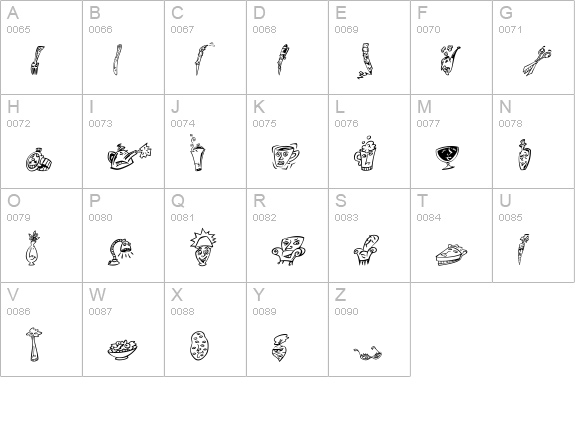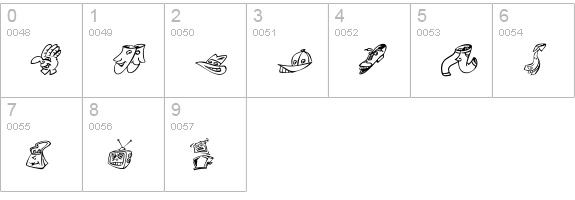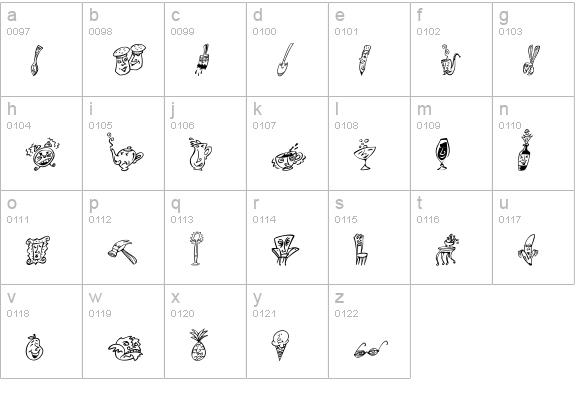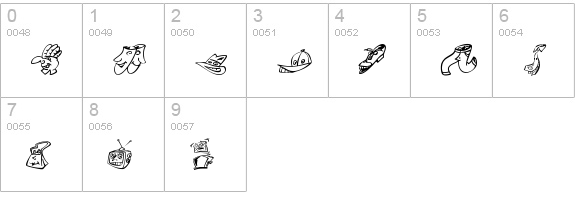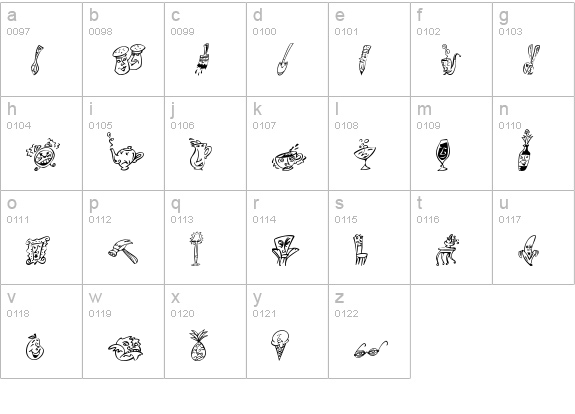
Mini Pics HomeBuddies Font Details
Mini Pics HomeBuddies font is a charming and whimsical typeface that exudes warmth and friendliness. With its playful and hand-drawn style, this font is perfect for adding a touch of personality to any design project. Whether you're creating invitations, greeting cards, or social media graphics, Mini Pics HomeBuddies will bring a sense of fun and creativity to your work. The best part? Mini Pics HomeBuddies is available for free download at FontsMarket.com! That's right, you can add this delightful font to your collection at no cost at all. So why wait? Download Mini Pics HomeBuddies today and let your creativity soar with this delightful and versatile typeface.